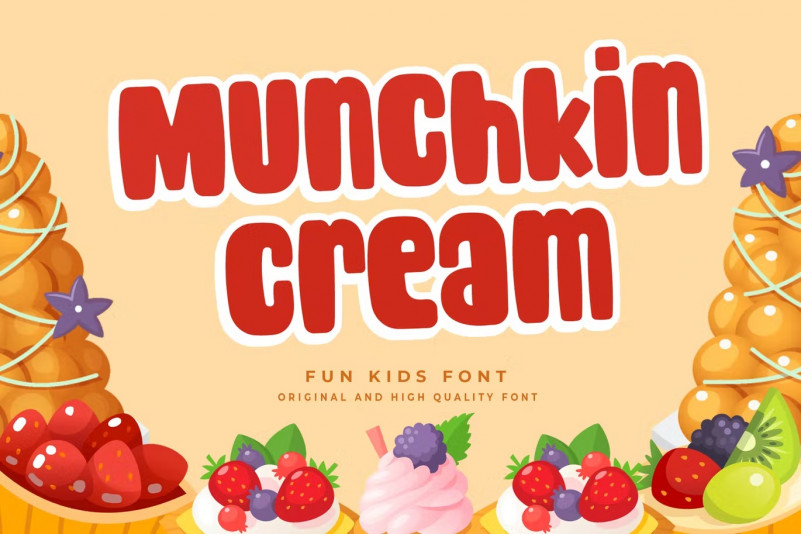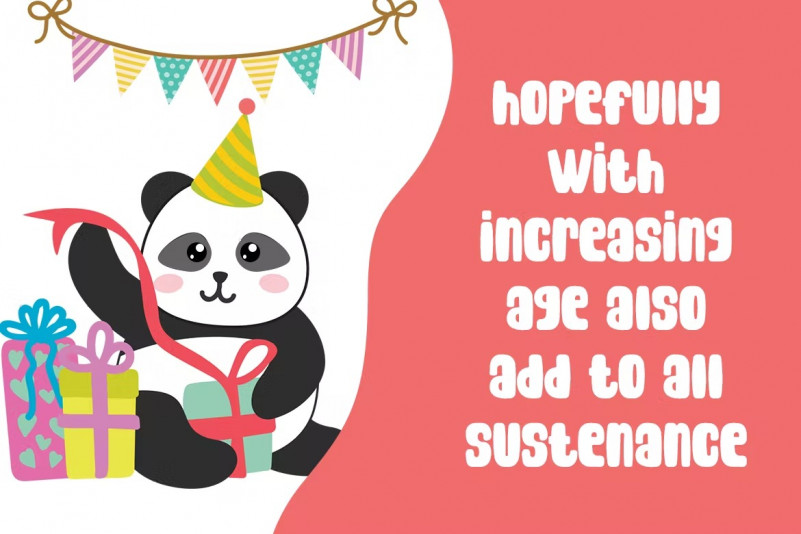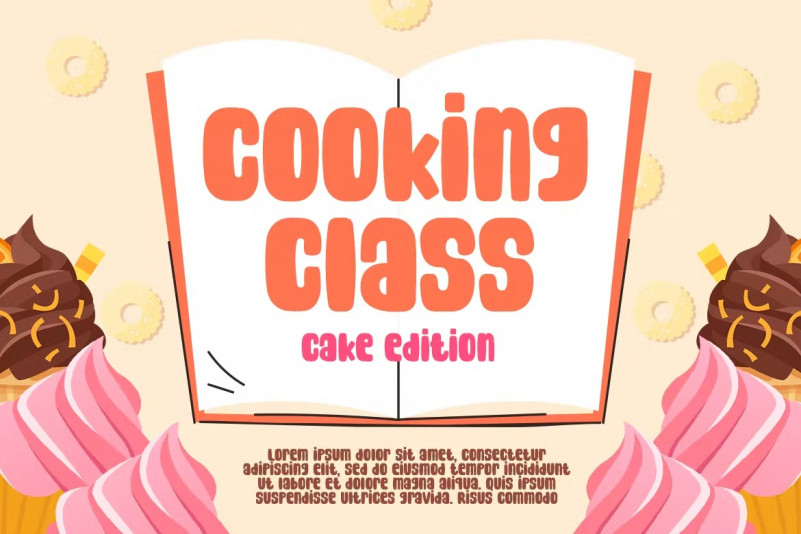
Aku Sayang Display Font
Aku Sayang Display Font by Dika 16,616 downloads
Aku Sayang Display Font
Aku Sayang is a cute and casual display font with an incredibly friendly feel. Whether you’re looking for fonts for Instagram or calligraphy scripts for DIY projects, this font will turn any creative idea into a true piece of art!